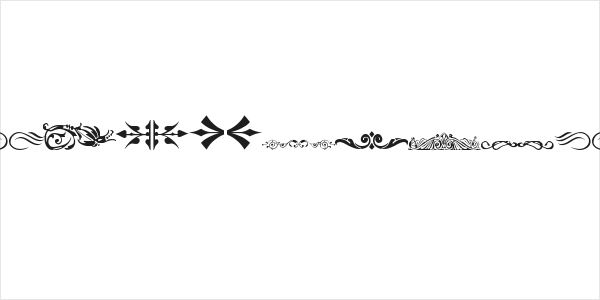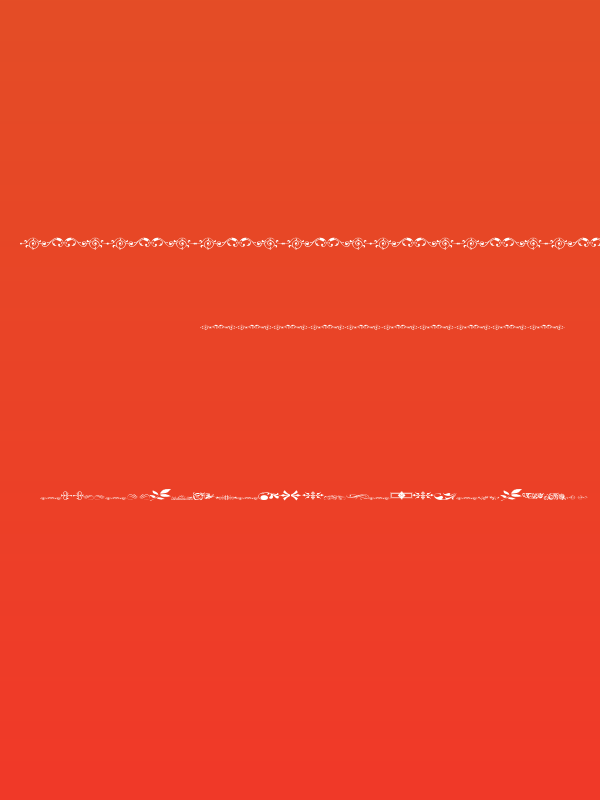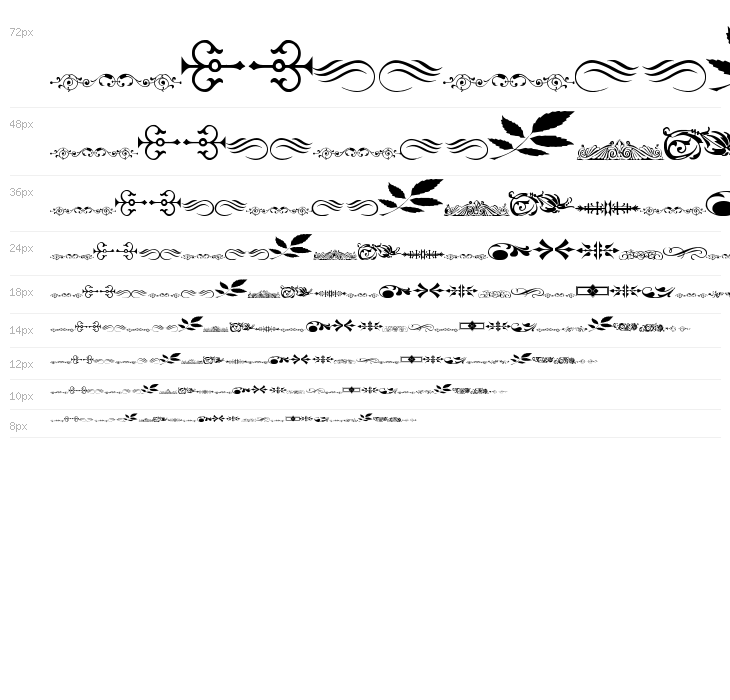
Vintage Decorative Signs 11 Font
Vintage Decorative Signs 11 Description
Highly decorative and ornate set of vintage-style border and divider glyphs, featuring intricate flourishes, floral motifs, and symmetrical patterns, reminiscent of classic sign painting and Victorian embellishments.
| Overall Style | Vintage, Decorative |
| Use Case | Borders, Dividers, Decorative accents |
| Proposed Projects | Wedding invitations, certificates, vintage posters, restaurant menus, decorative signage, book covers. |